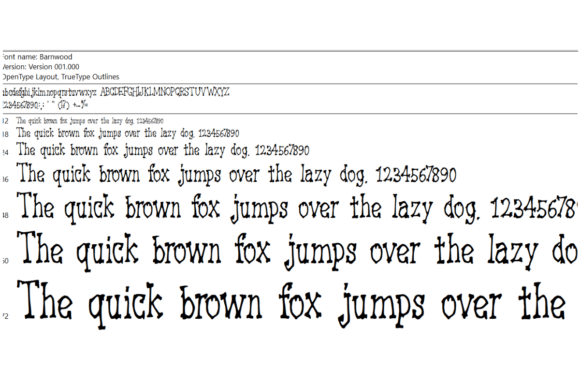
Introduction to Barnwood Font
Experience the essence of countrified charm with Barnwood, a serif font that is rustic yet refined in its appeal.
This typography would lend a distinctive rural touch to your creative endeavor, harmonizing sophistication with down-to-earth simplicity Imbued with the rugged beauty of an old countryside farmhouse, Barnwood mimics the weathered textures of vintage wood, serving as a rustic reminder of life’s simple pleasures.
Key Features of Barnwood Font
Barnwood Font offers exceptional quality and versatility, making it a valuable addition to your design toolkit. Whether you’re creating for personal projects or commercial use, Barnwood Font delivers professional results.